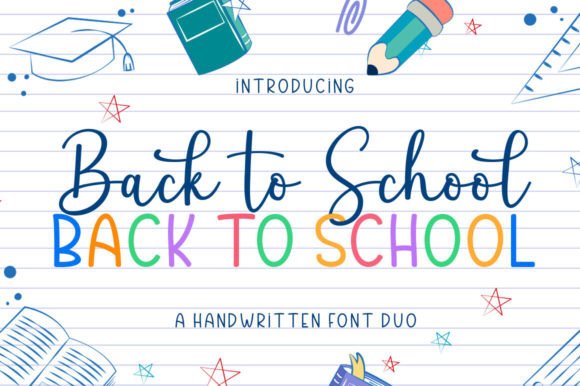
Back to School Duo Font: Elevate Your Crafts with Chic and Cheery Typography
As the new academic year approaches, it’s time to get creative with your back to school crafts. Introducing the Back to School Duo Font, a perfectly paired set of two fonts designed to add a touch of sophistication and playfulness to your projects. In this article, we’ll explore the features and benefits of this fantastic font duo, and how it can take your crafting endeavors to the next level.
What is Back to School Duo Font?
The Back to School Duo Font consists of two complementary fonts that are designed to work together in harmony. This versatile font set is ideal for a wide range of crafting applications, from DIY projects and stationery to digital designs and social media graphics. Whether you’re a seasoned crafter or a beginner, this font duo is sure to become a valuable addition to your creative toolkit.
Key Features of Back to School Duo Font
- PUA Encoding: The Back to School Duo Font is PUA (Private Use Area) encoded, which means you can easily access all glyphs and swashes with just a few clicks. This feature makes it simple to customize your designs and add a personal touch.
- Two Complementary Fonts: The font duo consists of two carefully crafted fonts that are designed to complement each other perfectly. You can use them together or apart, depending on your design preferences.
- Chic and Cheery Style: The Back to School Duo Font boasts a chic and cheery aesthetic that’s perfect for adding a touch of personality to your crafts. The fonts are clean, modern, and highly legible, making them ideal for a wide range of applications.
Benefits of Using Back to School Duo Font
The Back to School Duo Font offers a range of benefits that make it an excellent choice for crafters, designers, and DIY enthusiasts. Some of the key advantages of using this font duo include:
- Ease of Use: The font is PUA encoded, making it easy to access all glyphs and swashes. This feature saves you time and effort, allowing you to focus on the creative aspects of your project.
- Versatility: The Back to School Duo Font is highly versatile and can be used for a wide range of crafting applications, from paper crafting and card making to digital designs and social media graphics.
- Customization: With the Back to School Duo Font, you can easily customize your designs and add a personal touch. The font duo includes a range of glyphs and swashes that can be used to create unique and eye-catching designs.
Tips for Using Back to School Duo Font
To get the most out of the Back to School Duo Font, here are a few tips to keep in mind:
- Experiment with Different Pairings: Try pairing the two fonts together or using them apart to create different design effects.
- Add Glyphs and Swashes: Use the PUA encoded glyphs and swashes to add a personal touch to your designs and make them more visually appealing.
- Mix and Match with Other Fonts: Don’t be afraid to mix and match the Back to School Duo Font with other fonts to create unique and interesting design combinations.
Common Use Cases for Back to School Duo Font
The Back to School Duo Font is a versatile font duo that can be used for a wide range of crafting applications. Some common use cases include:
- Back to School Crafts: Use the font duo to create custom back to school crafts, such as DIY projects, stationery, and decorations.
- Digital Designs: The font duo is perfect for digital designs, including social media graphics, blog posts, and website headers.
- Paper Crafting: Use the Back to School Duo Font to create custom paper crafting projects, such as cards, invitations, and scrapbook pages.
The Back to School Duo Font is a fantastic font duo that’s perfect for adding a touch of chic and cheery style to your crafts. With its PUA encoding, two complementary fonts, and versatile design, this font duo is sure to become a valuable addition to your creative toolkit. Whether you’re a seasoned crafter or a beginner, the Back to School Duo Font is an excellent choice for anyone looking to elevate their crafting endeavors.